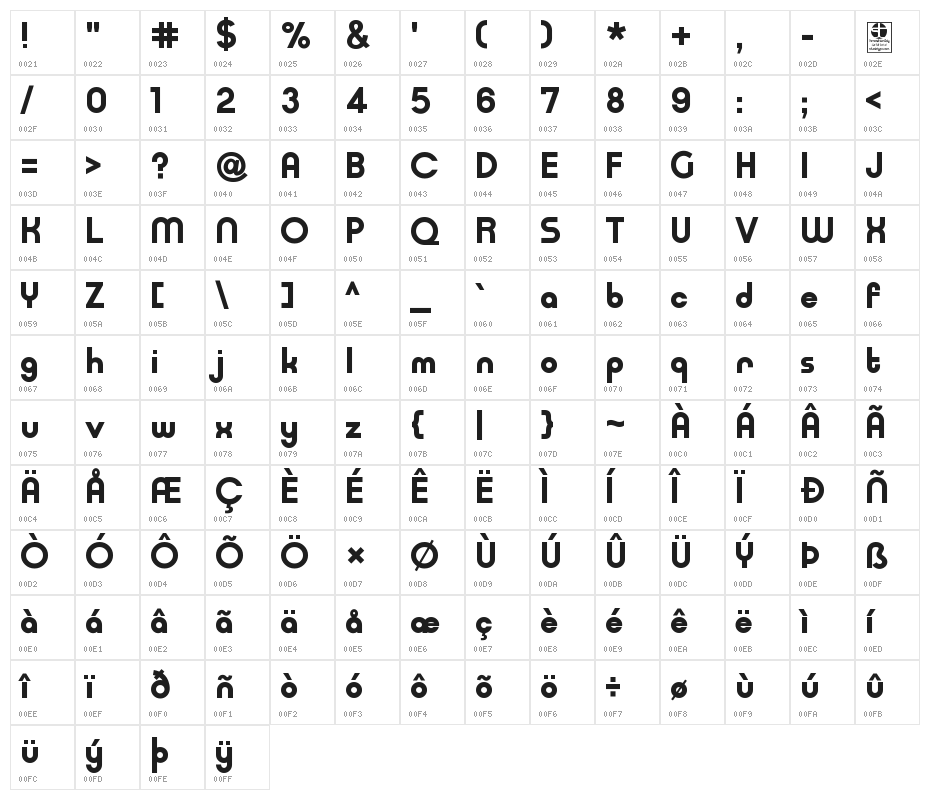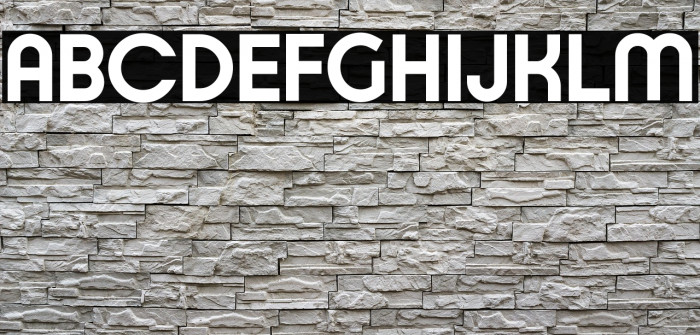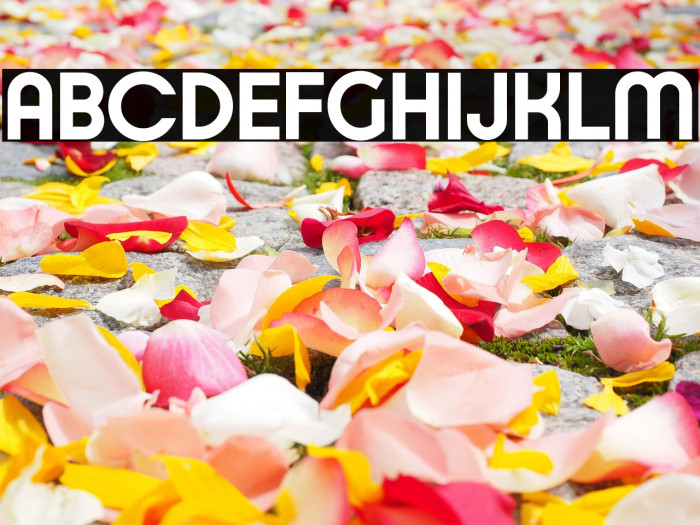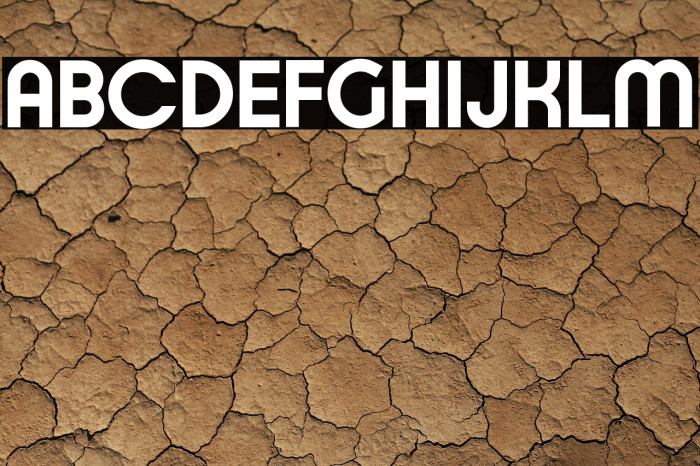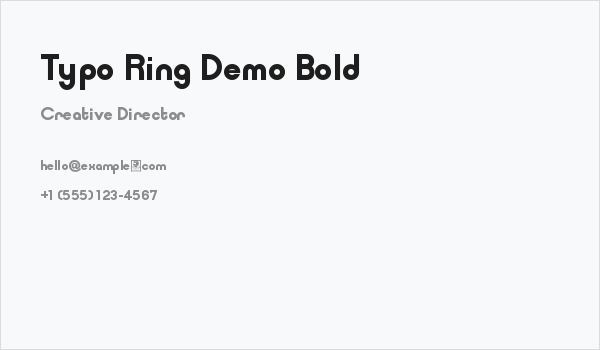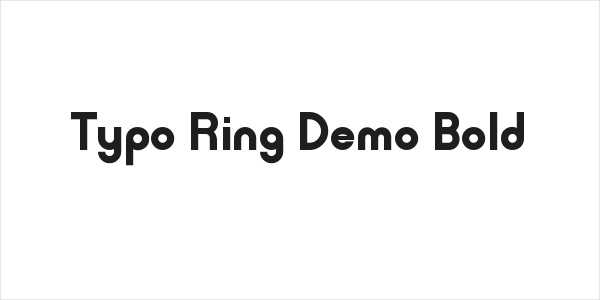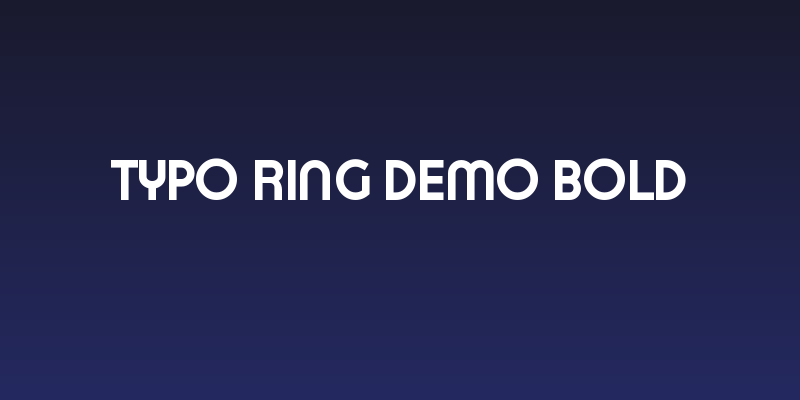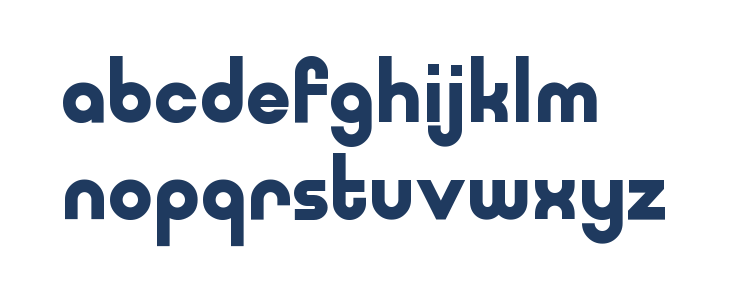
Typo Ring Demo Bold Font
Typo Ring Demo Bold Description
This font features a bold, rounded style with a modern and playful appearance. The characters are evenly weighted, providing a sense of balance and uniformity. The rounded edges give it a friendly and approachable feel, making it suitable for a variety of design contexts. The uppercase and lowercase letters maintain consistent proportions, while the numerals are clear and easily readable. Special characters are included, adding versatility to its use. The overall design is clean and straightforward, emphasizing readability and aesthetic appeal.
| Proposed Projects | Ideal for branding, advertising, children's books, and playful design projects. |